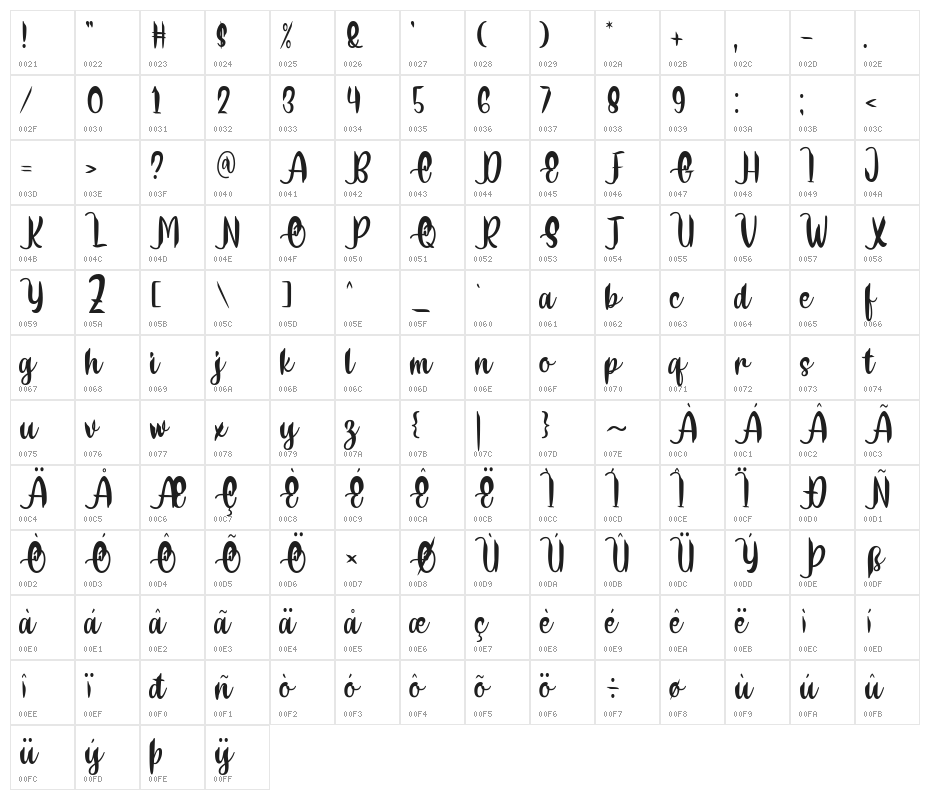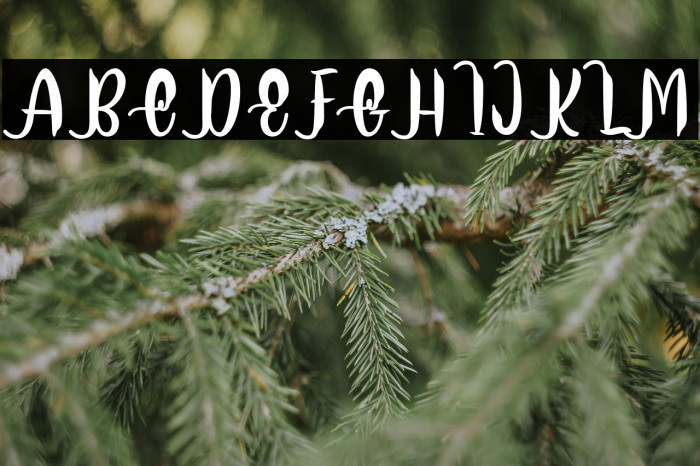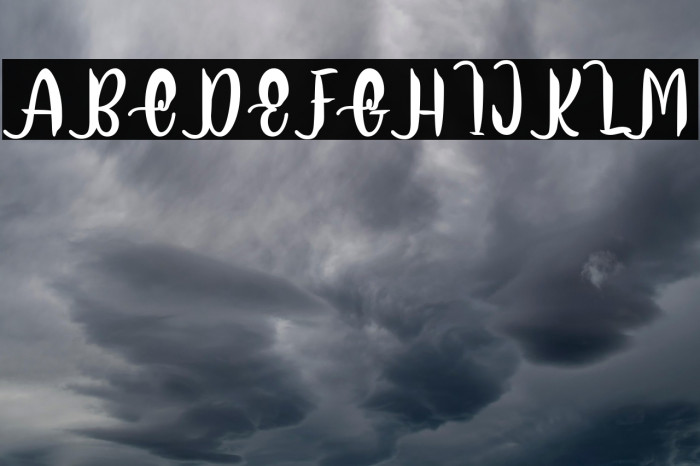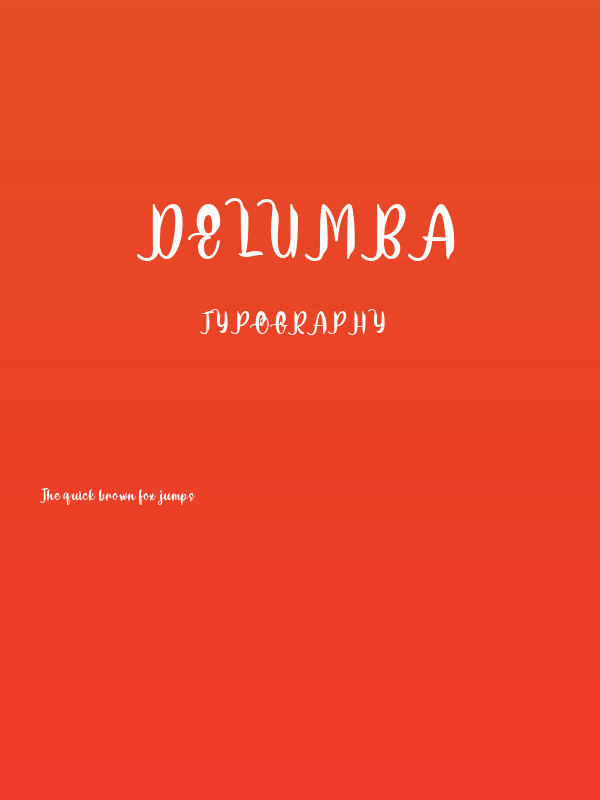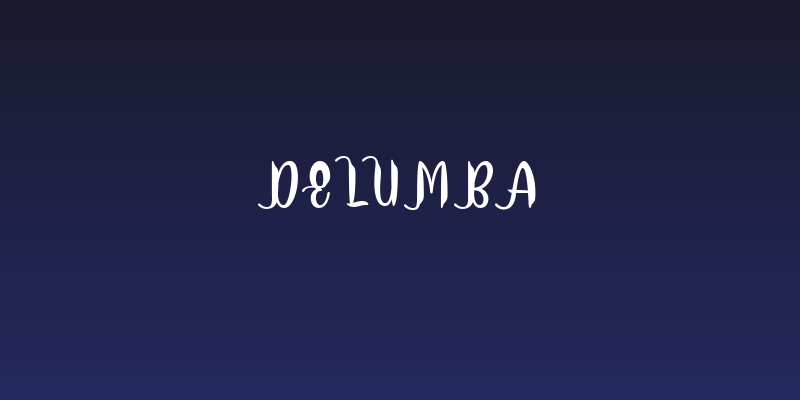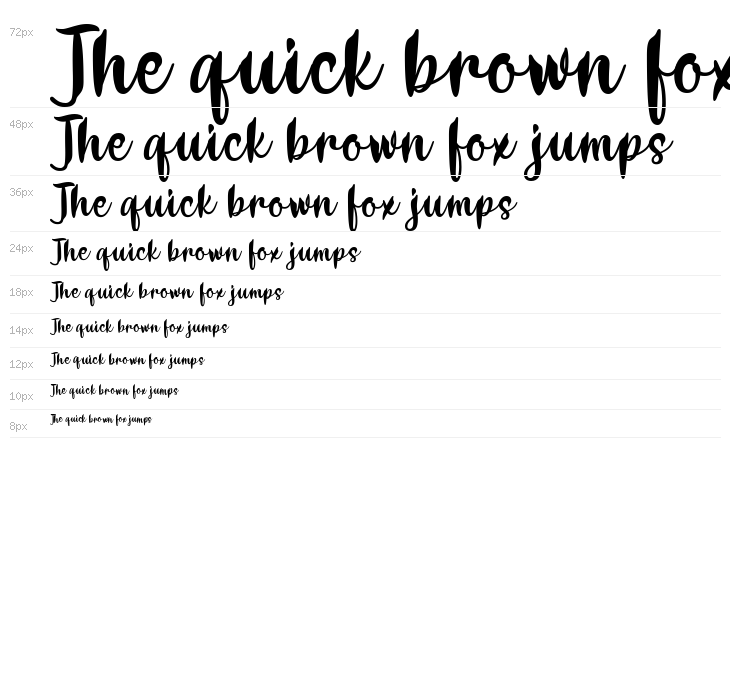
Delumba Font
Delumba Description
This font features a playful and whimsical script style with a handwritten appearance. The uppercase letters are bold and slightly condensed, with unique loops and curves that add a touch of elegance. The lowercase letters maintain a consistent flow, enhancing readability while retaining a casual charm. Numbers are bold and clear, matching the overall style of the font. Special characters are creatively designed, fitting seamlessly with the alphabetic characters. This font exudes a lively and artistic vibe, making it suitable for creative projects.
| Width | Condensed |
| Use Case | Logos, Invitations, Artistic projects |
| Proposed Projects | Ideal for greeting cards, invitations, branding, and artistic projects that require a personal touch. |